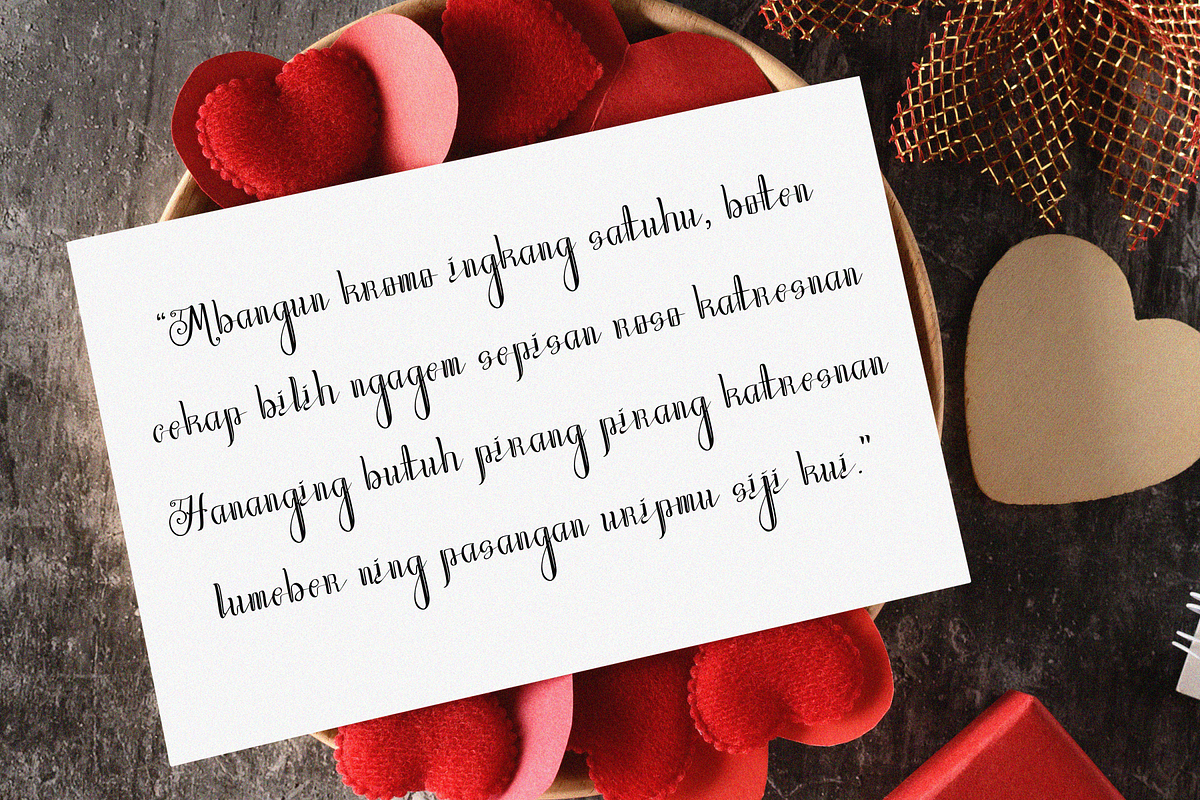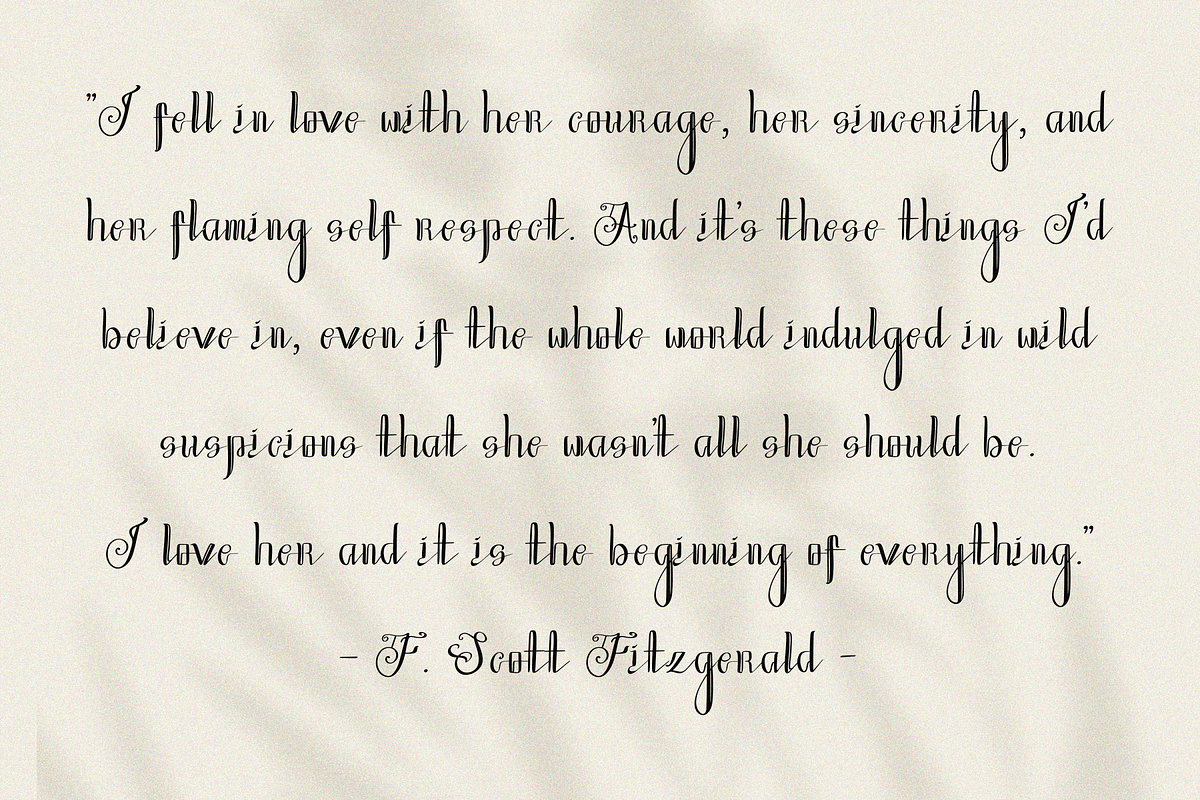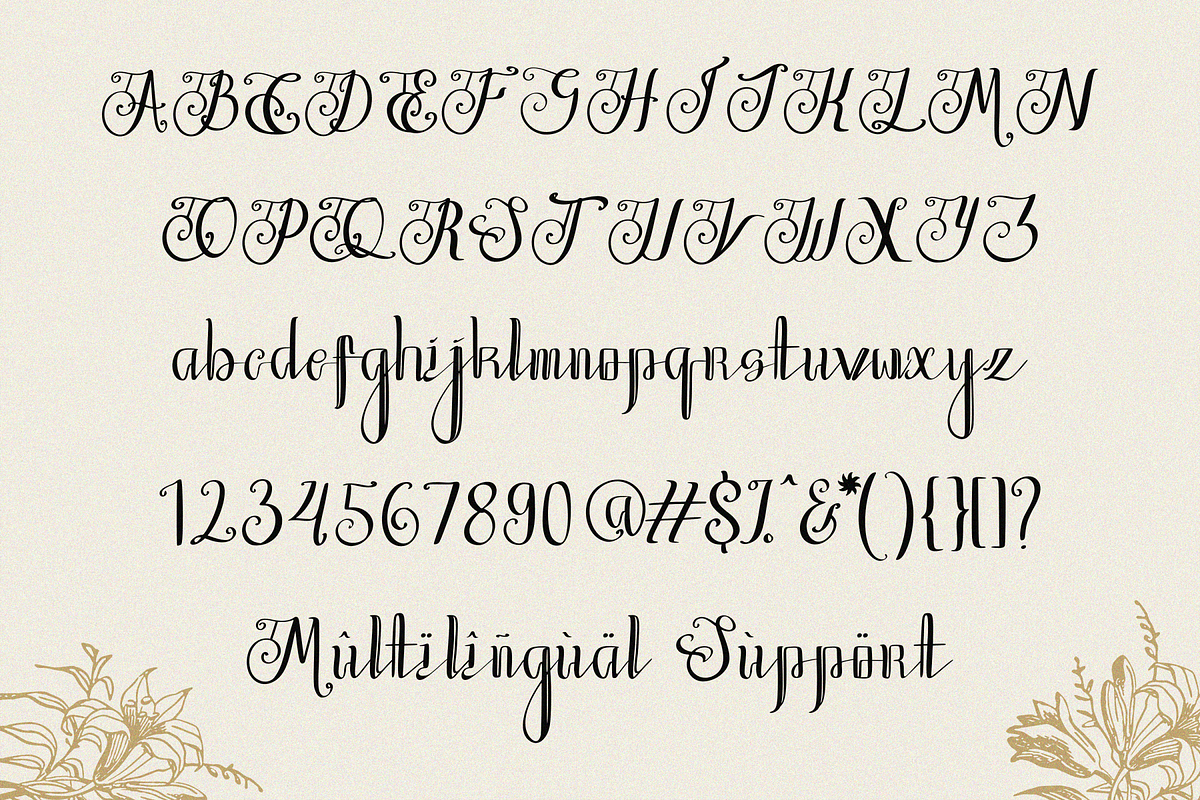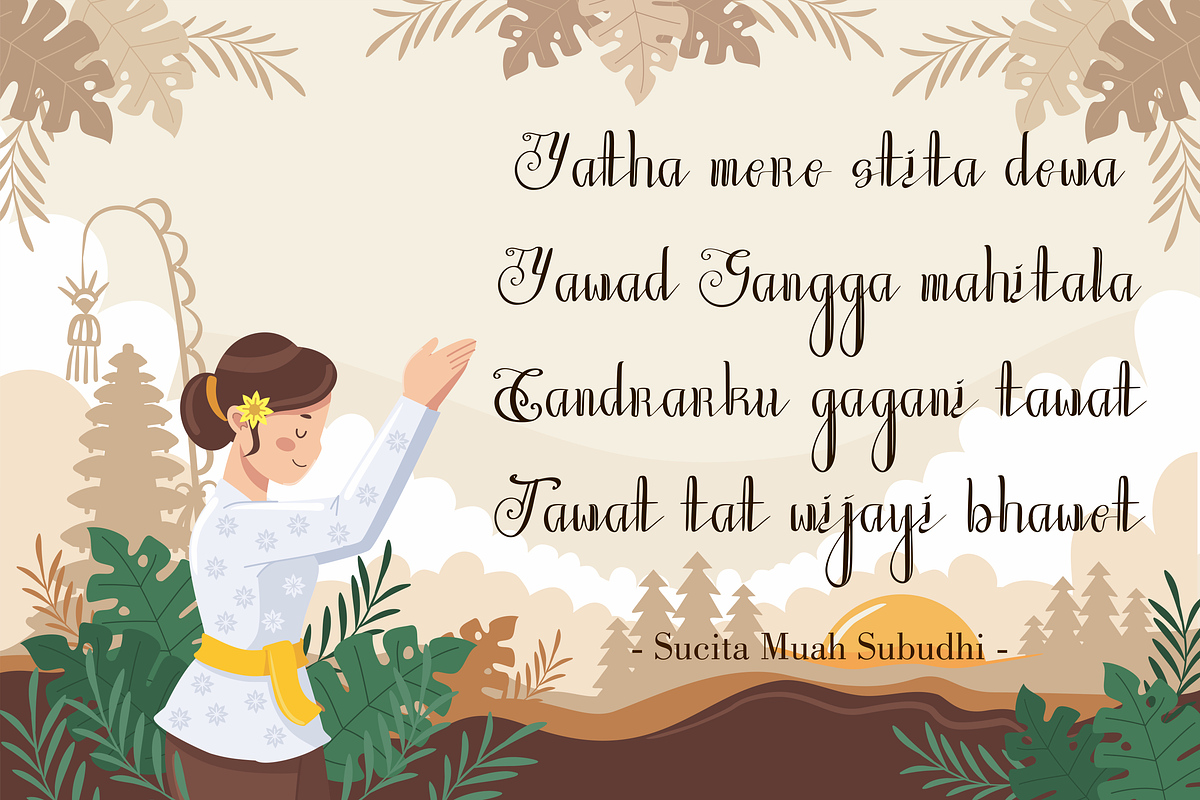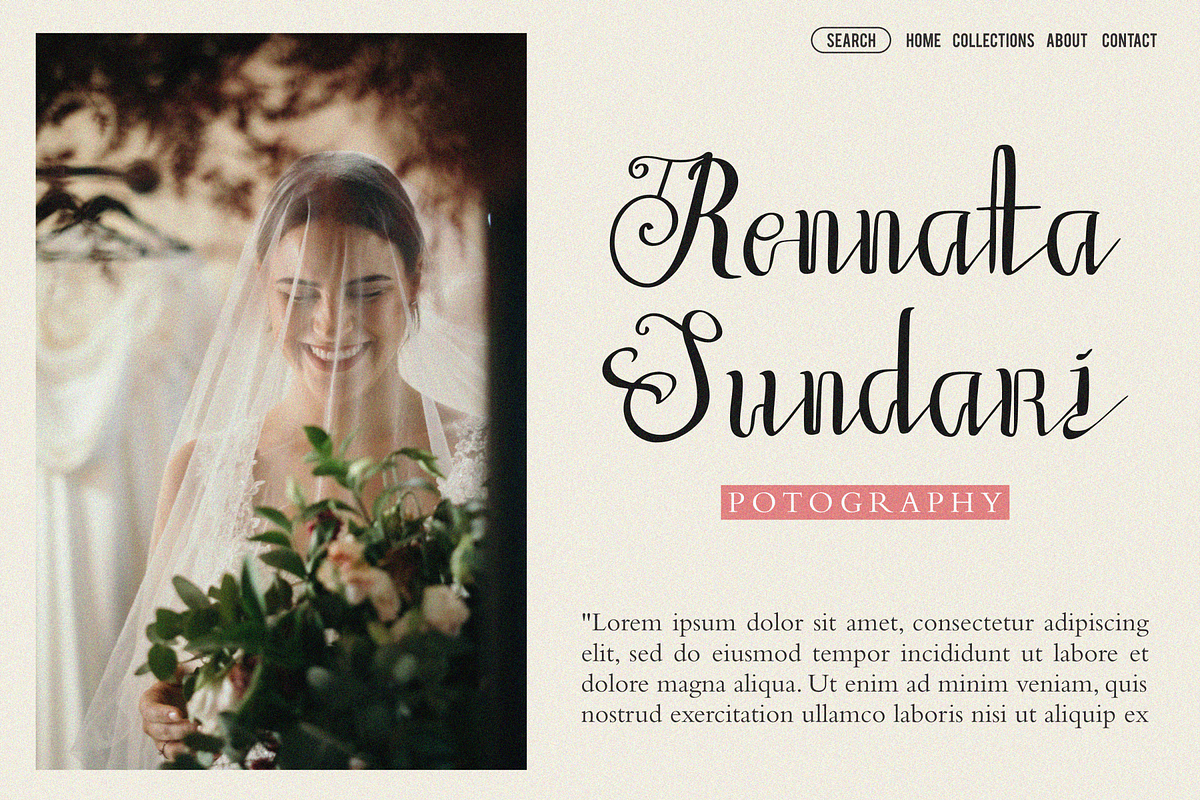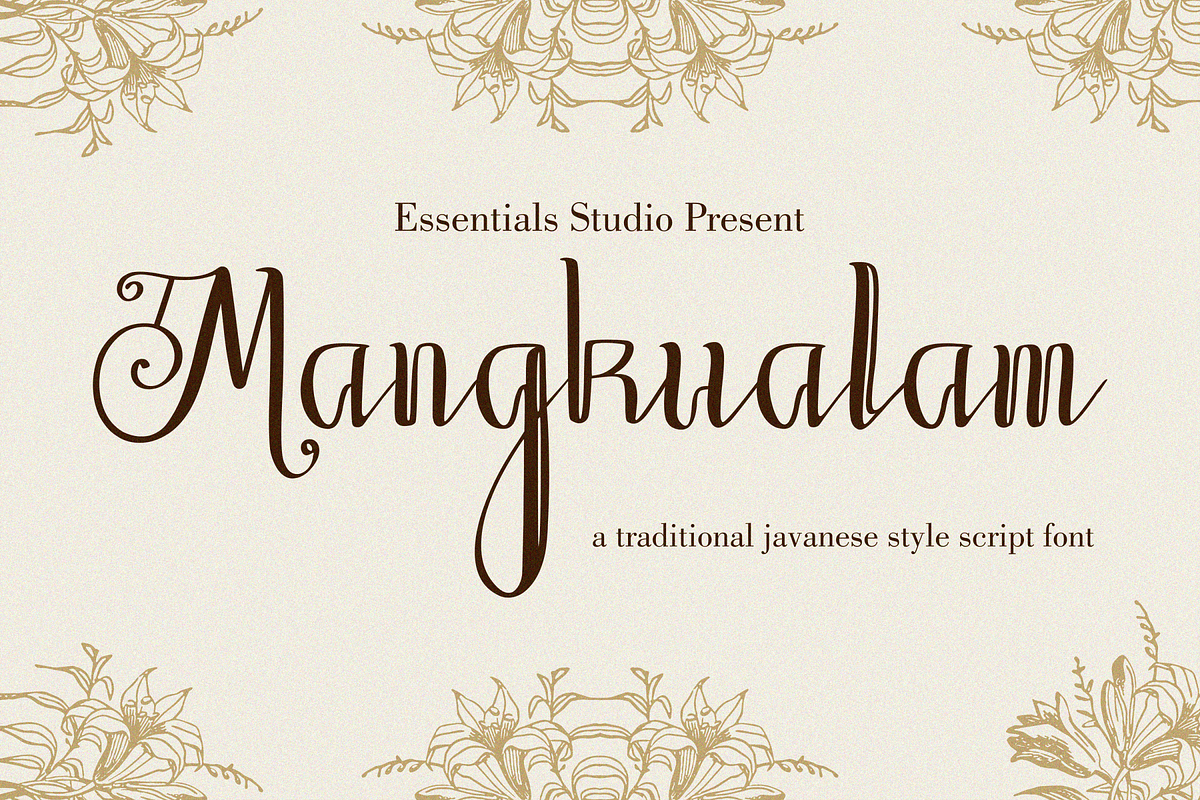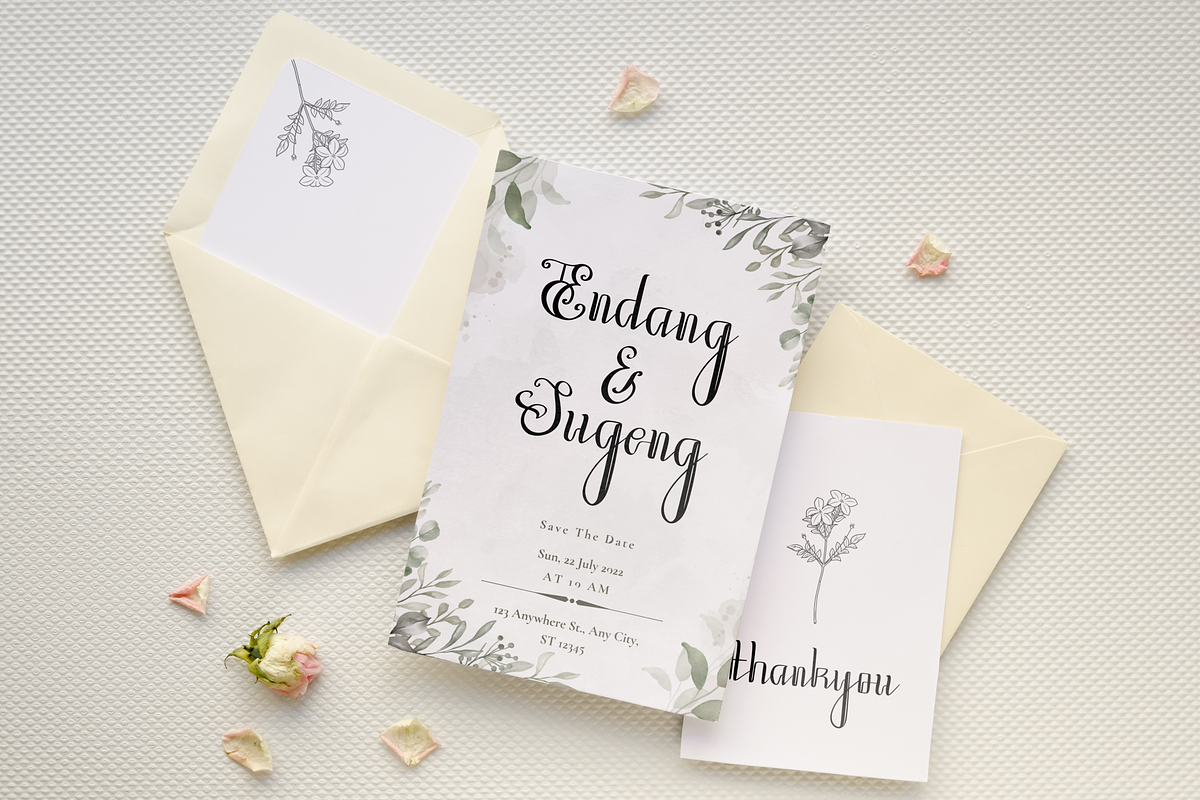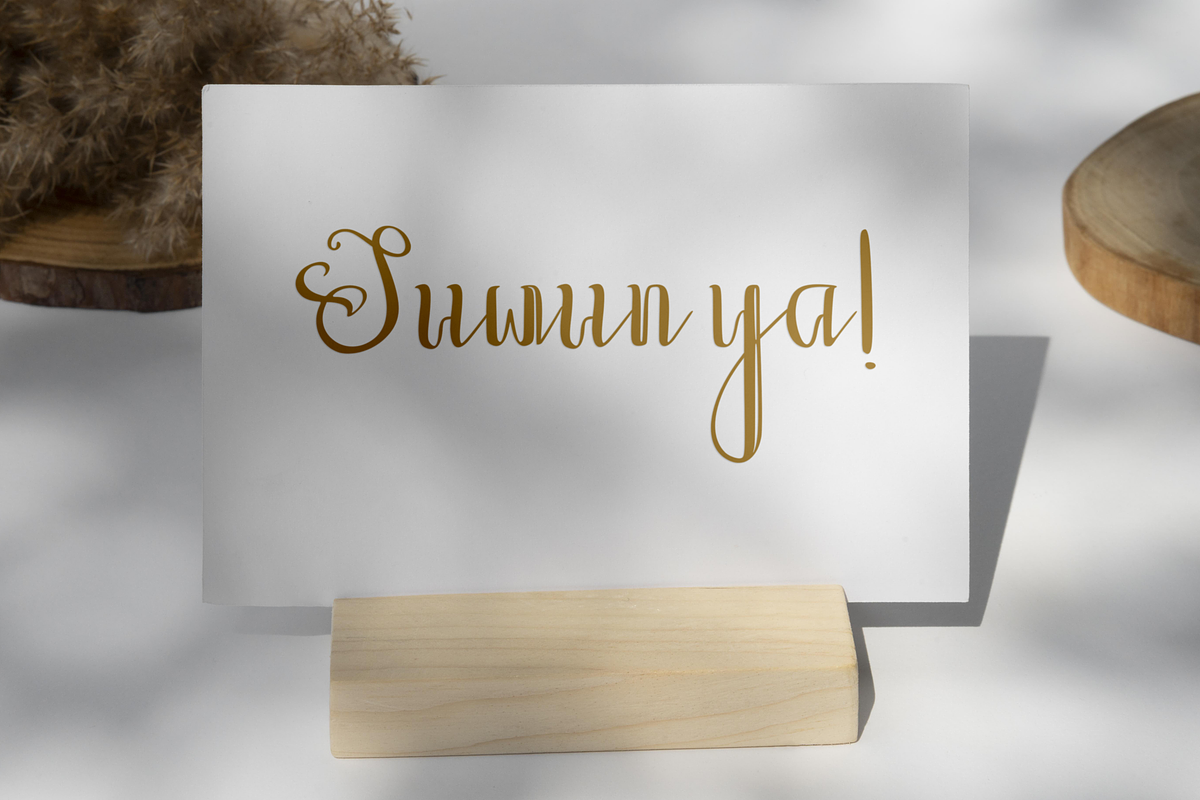
Magkualam
Proudly Present, Mangkualam
Mangkualam Is a Traditional Javanese Style Script Font Mangkualam is perfect for product packaging, branding project, megazine, social media, wedding, or just used to express words above the background.
This font also Multilingual Support